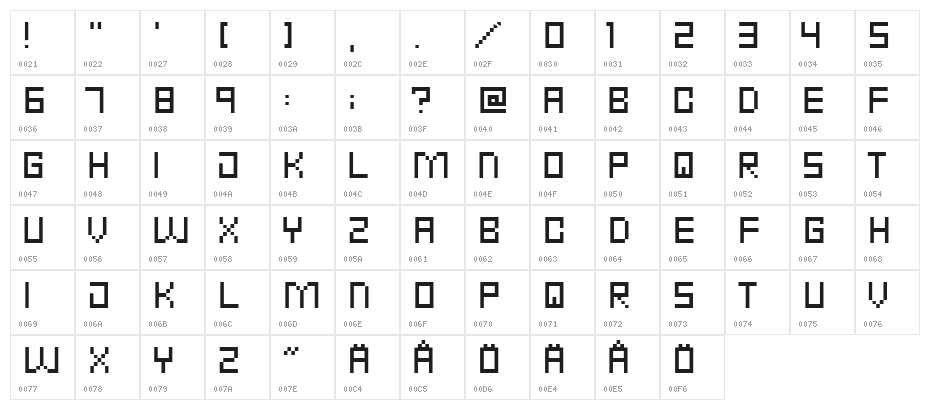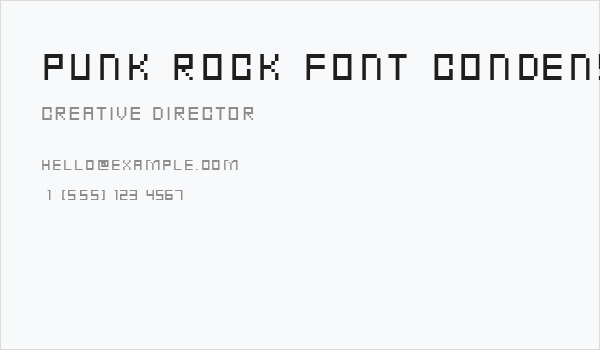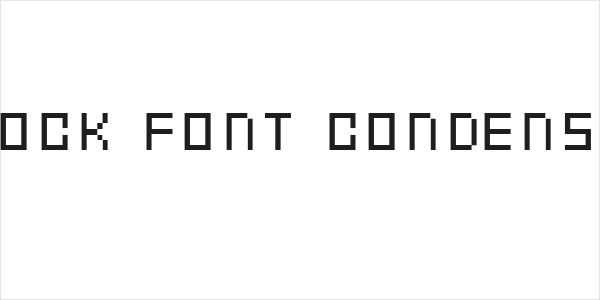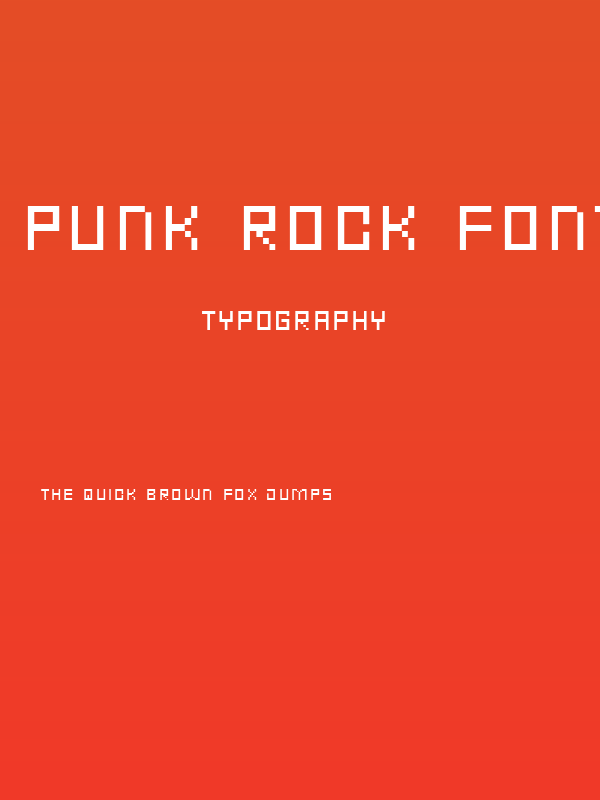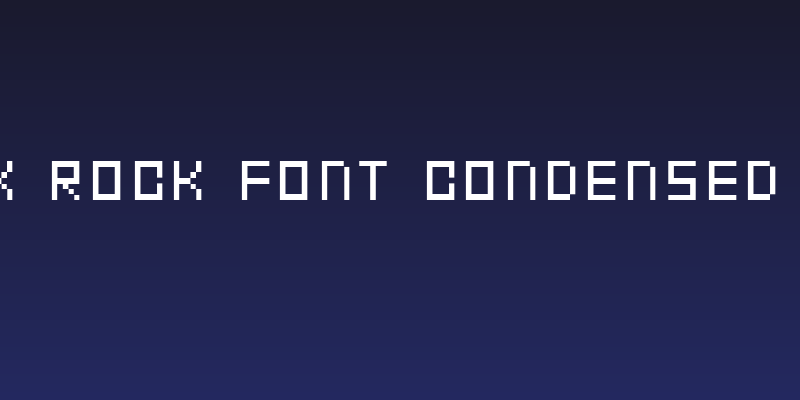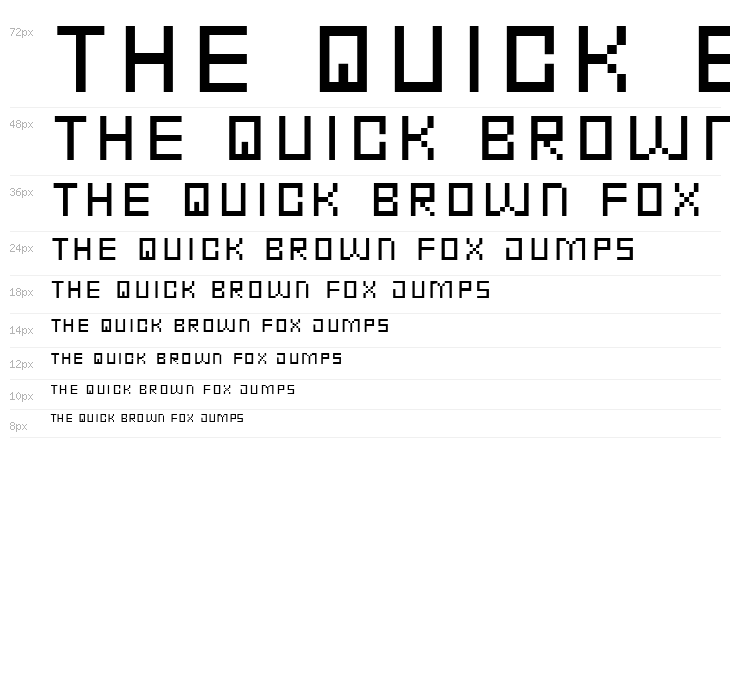
Punk Rock Font Condensed Thin Font
Punk Rock Font Condensed Thin Description
This font features a bold, geometric design with a condensed and thin structure, reminiscent of a punk rock aesthetic. The characters are constructed with sharp, angular lines and a uniform stroke width, creating a modern and edgy appearance. The uppercase and lowercase letters maintain a consistent height, contributing to a cohesive and streamlined look. The numerals and special characters follow the same design principles, ensuring visual harmony across all elements. This font's distinct style makes it suitable for projects that require a strong, rebellious, and contemporary vibe.
| Proposed Projects | Ideal for music album covers, band logos, event posters, and edgy branding materials. |